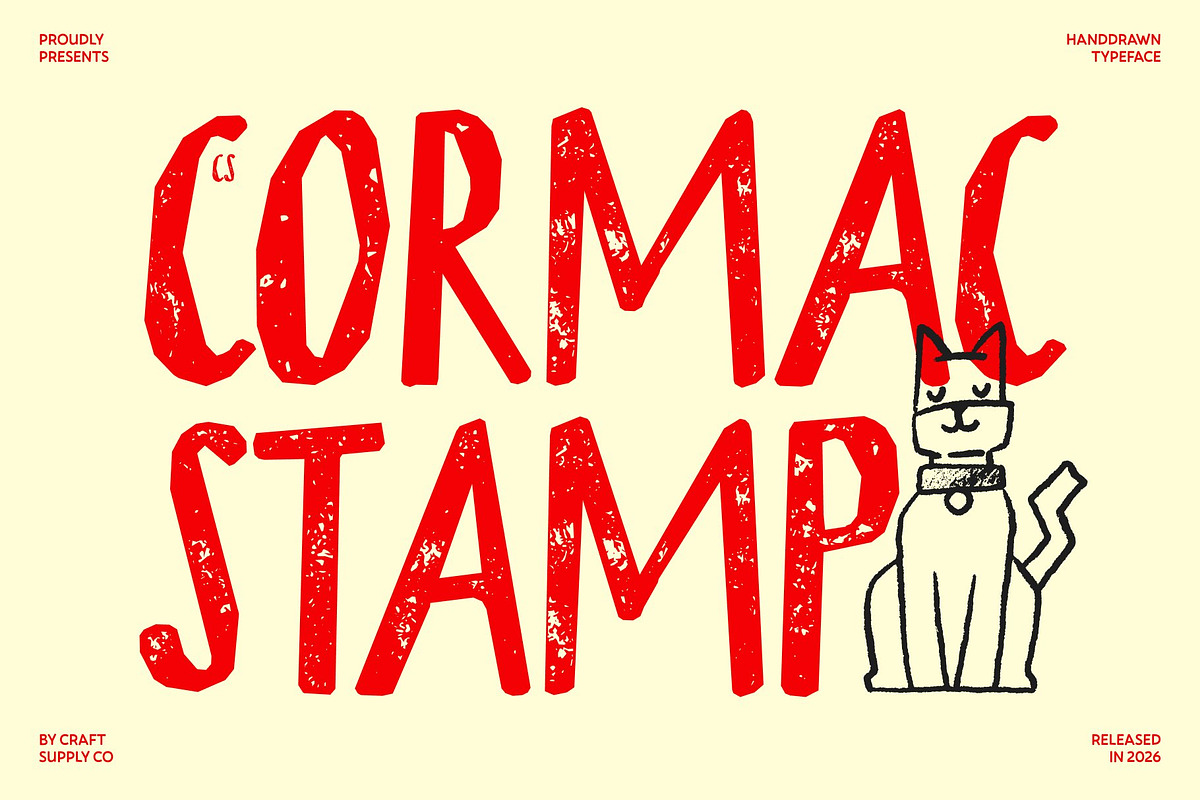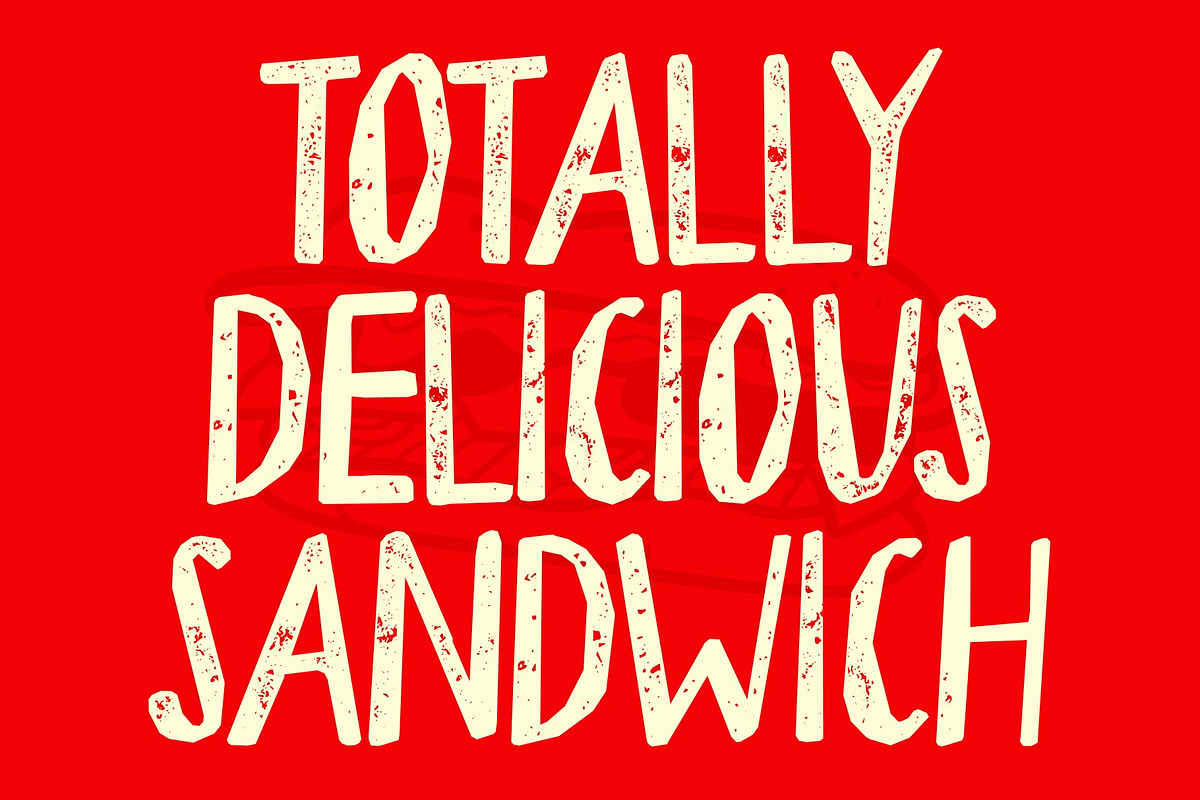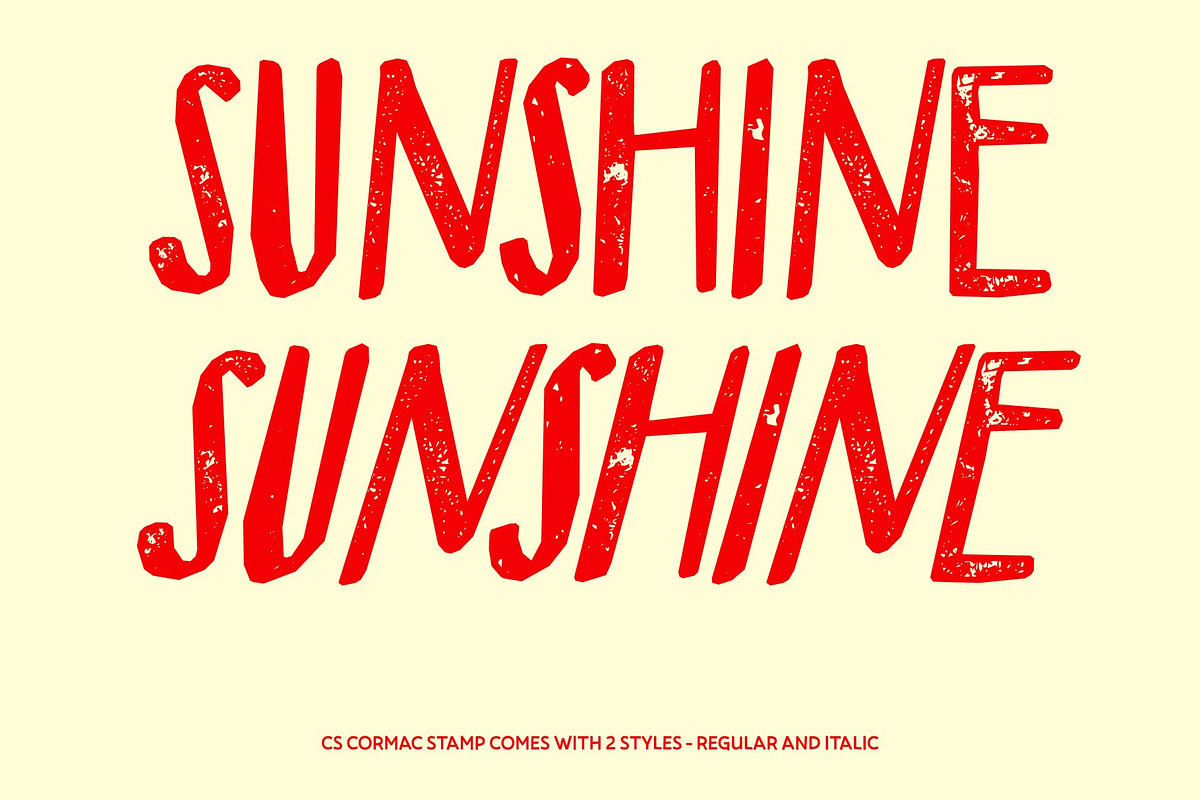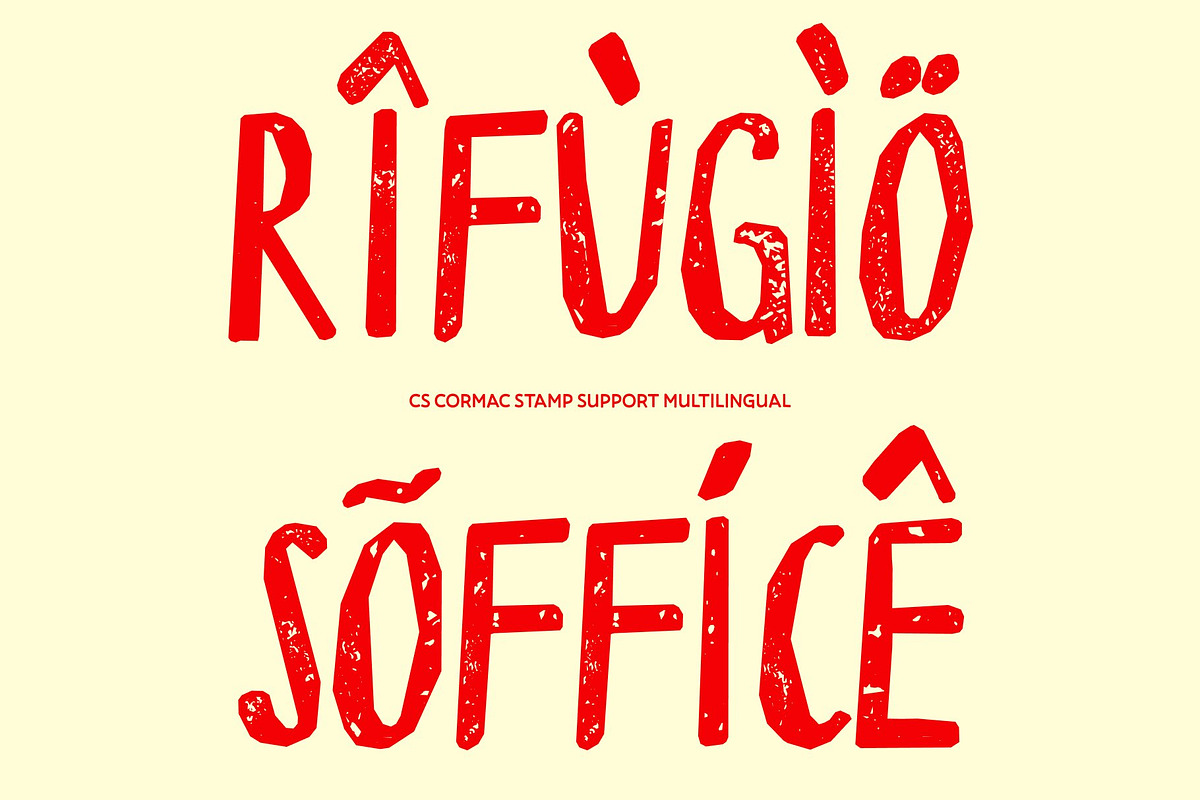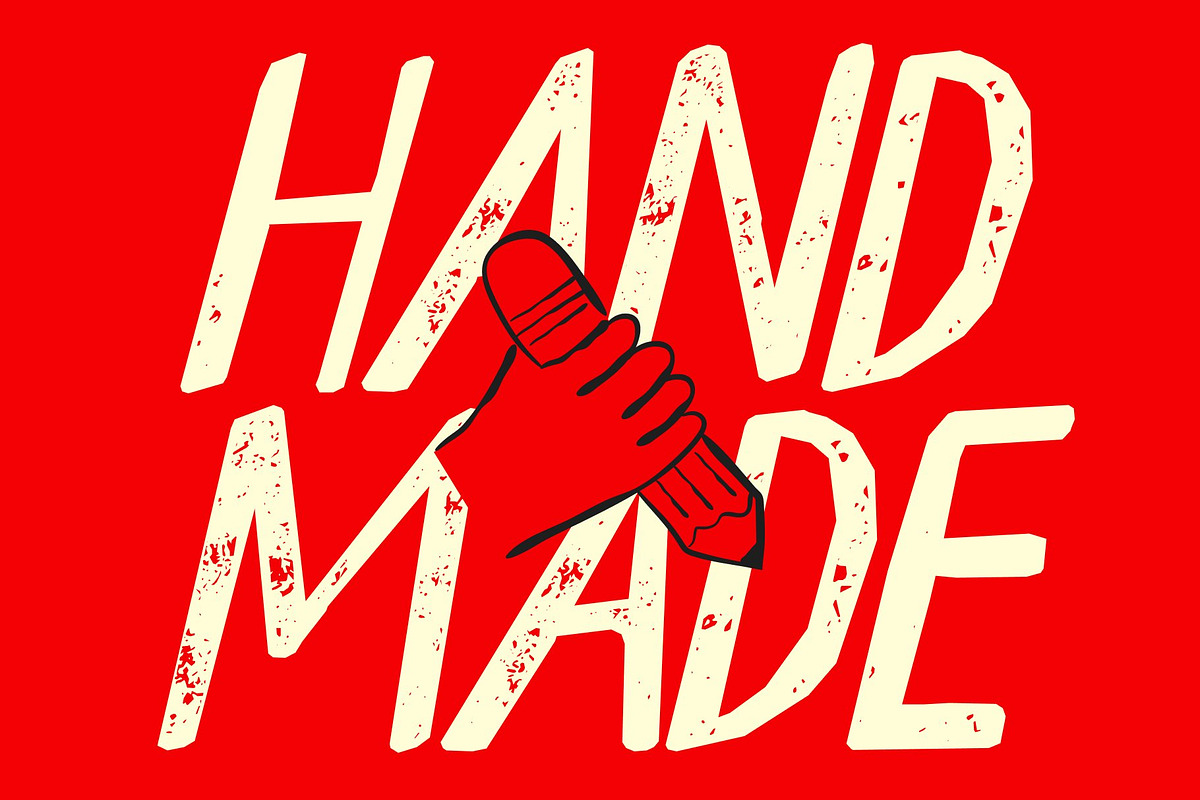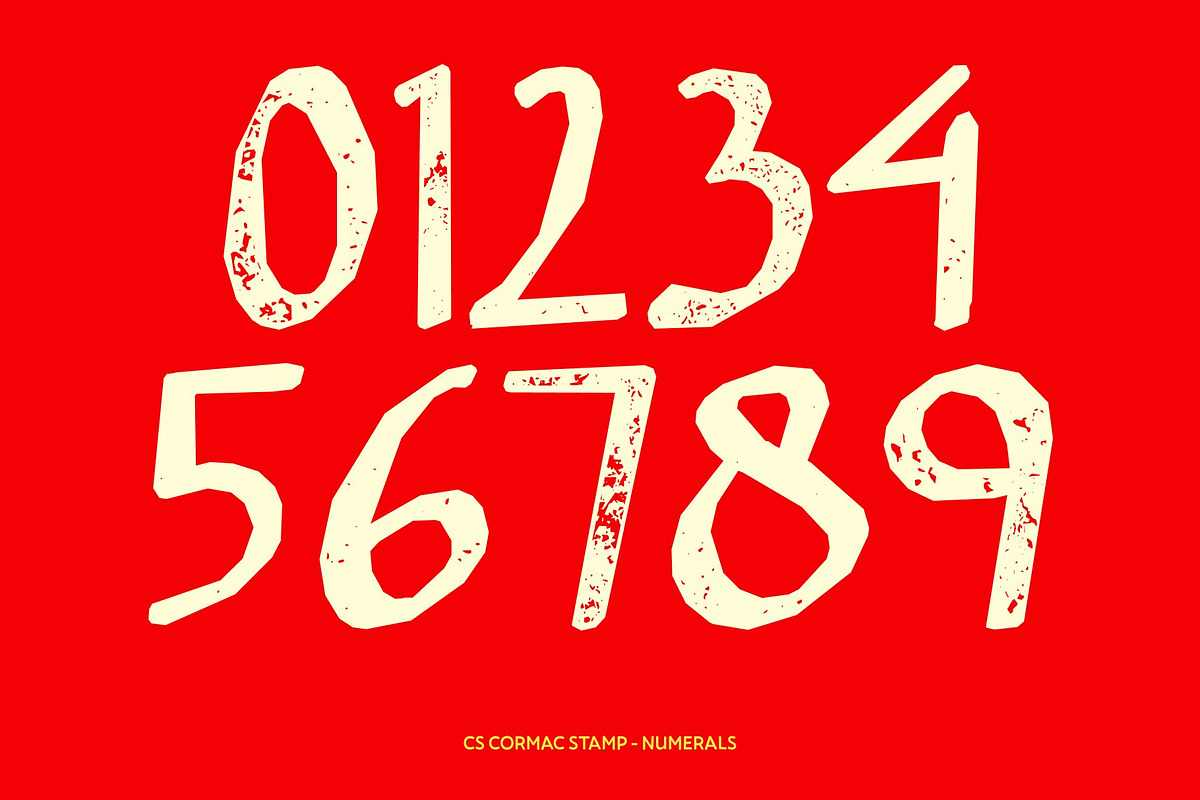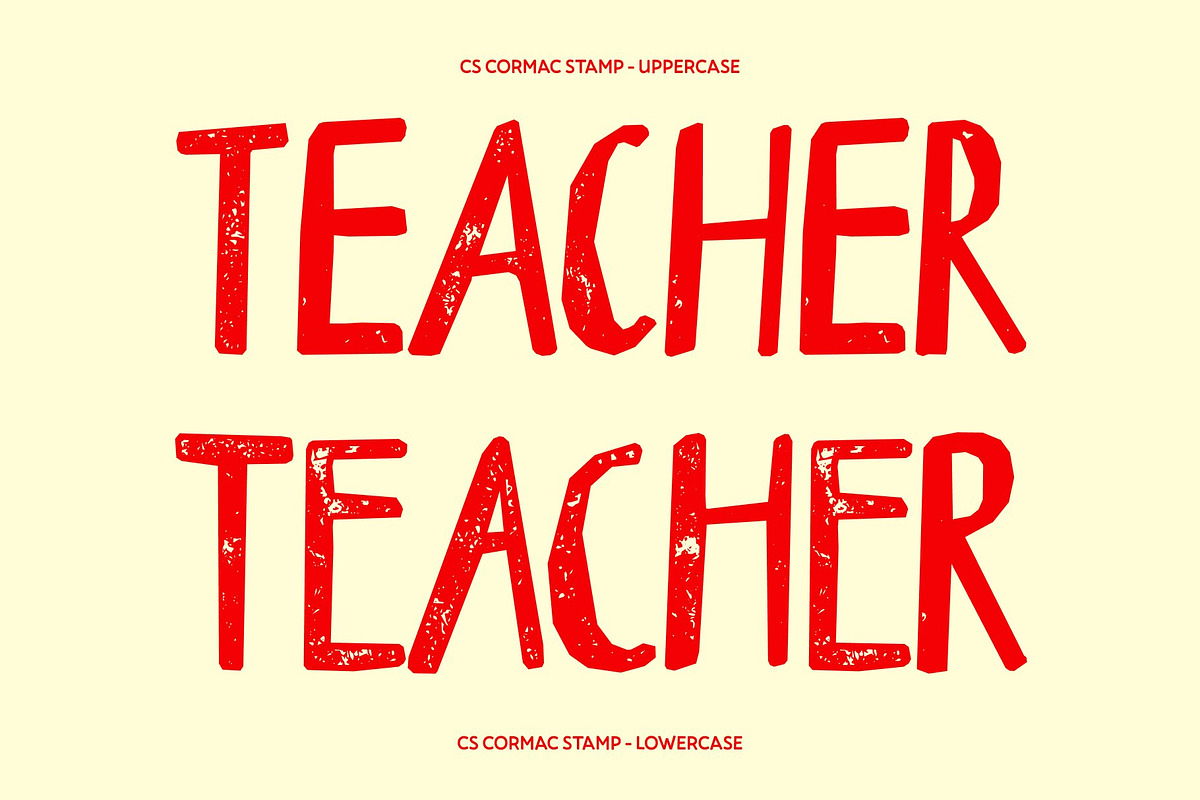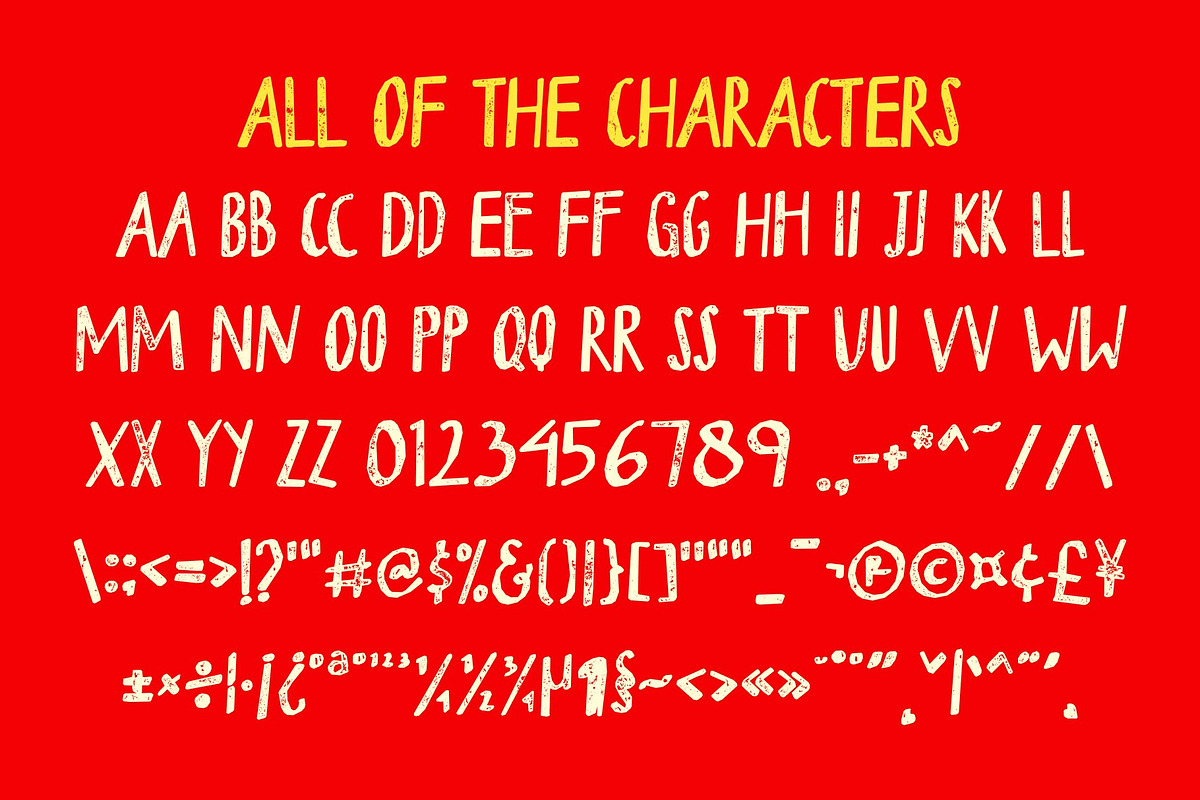
CS Cormac Stamp
CS Cormac Stamp – Natural Flow with Vintage Marker Texture
Slim Marker Sans Serif with Expressive Style This is a marker-style sans serif font defined by its slim proportions and smooth, flowing structure. Its elongated letterforms carry a subtle handwritten quality, blending modern clarity with expressive movement. Enhanced with a stamp effect, the font gains a textured, slightly distressed finish that reinforces its handcrafted and organic feel.
Handwritten Texture with Authentic Character Each stroke reflects the natural rhythm of marker writing, enriched by gentle imperfections and ink-like variations. The stamp texture adds depth and warmth, creating a tactile, lived-in appearance that feels both artistic and approachable while preserving readability.
Balanced Between Precision and Personality This font strikes a refined balance between structure and spontaneity. Its clean sans serif foundation ensures a polished look, while its flowing details and textured finish introduce personality and visual interest making it suitable for both professional and creative contexts.
Perfect for Editorial, Branding, and Digital Design Ideal for editorial layouts, branding, social media, packaging, and digital design, offers versatility with a human touch. Its combination of modern slim form, handwritten flow, and vintage stamp texture creates a distinctive typographic voice that feels warm, stylish, and effortlessly expressive.
CS Cormac Stamp Regular
CS Cormac Stamp Italic